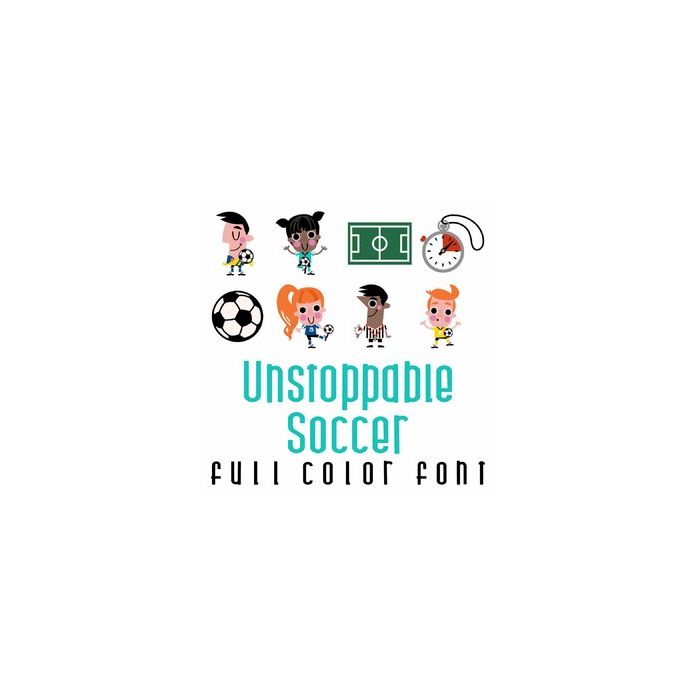
This adorable full color doodlebat font features 26 fun soccer players and imagery. Perfect for cards, crafts, gifts, decor, scrap book pages, planner stickers and more!